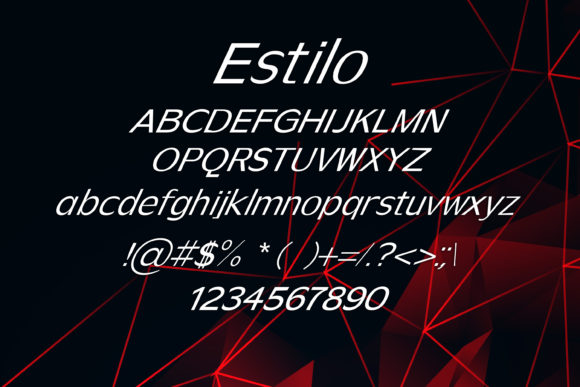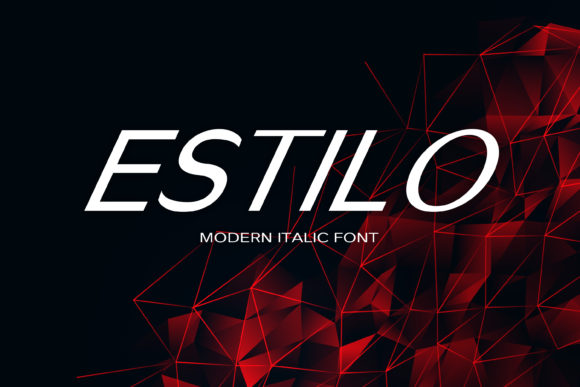
Introducing Estilo Font: A Modern Twist on Traditional Sign Painting
Are you tired of using the same old fonts in your designs? Look no further than Estilo Font, a sans serif font that brings a fresh and modern spin to traditional sign painting. With its clean and minimal aesthetic, Estilo Font is perfect for designers and crafters looking to add a touch of sophistication to their work.
The Inspiration Behind Estilo Font
Estilo Font draws inspiration from the classic sign painting styles of the past, but with a modern twist. The font’s creator aimed to capture the essence of traditional sign painting, while making it suitable for contemporary designs. The result is a font that is both nostalgic and forward-thinking.
Key Features of Estilo Font
So, what makes Estilo Font so special? Here are just a few of its key features:
- Clean and Minimal Design: Estilo Font boasts a super clean and minimal design, making it perfect for modern and contemporary designs.
- Sans Serif Font: As a sans serif font, Estilo Font is easy to read and versatile, making it suitable for a wide range of applications.
- Modern Twist: Estilo Font’s modern twist on traditional sign painting makes it stand out from other fonts in its category.
Use Cases for Estilo Font
Estilo Font is incredibly versatile, making it suitable for a wide range of design projects. Here are just a few ideas to get you started:
- Logos: Estilo Font’s clean and modern design makes it perfect for logos that need to make a statement.
- Headlines: Add a touch of sophistication to your headlines with Estilo Font’s elegant and refined design.
- Business Cards: Make a lasting impression with Estilo Font on your business cards.
- T-Shirts and Merchandise: Estilo Font’s bold and modern design looks great on t-shirts and other merchandise.
Why Choose Estilo Font?
With so many fonts to choose from, why should you choose Estilo Font? Here are just a few reasons:
- Unique Design: Estilo Font’s unique blend of traditional sign painting and modern design makes it stand out from other fonts.
- High-Quality: Estilo Font is a high-quality font that is designed to deliver exceptional results.
- Versatile: Estilo Font is incredibly versatile, making it suitable for a wide range of design projects.
Tips for Using Estilo Font
Here are a few tips for getting the most out of Estilo Font:
- Experiment with Different Sizes: Estilo Font looks great in a variety of sizes, so don’t be afraid to experiment.
- Pair with Other Fonts: Estilo Font pairs well with other fonts, so try combining it with different typefaces to create a unique look.
- Use it Boldly: Estilo Font’s bold and modern design makes it perfect for headlines and titles.
In conclusion, Estilo Font is a versatile and modern sans serif font that is perfect for designers and crafters looking to add a touch of sophistication to their work. With its clean and minimal design, Estilo Font is suitable for a wide range of design projects, from logos and headlines to business cards and merchandise. So why wait? Give Estilo Font a try today and see the difference it can make in your designs!